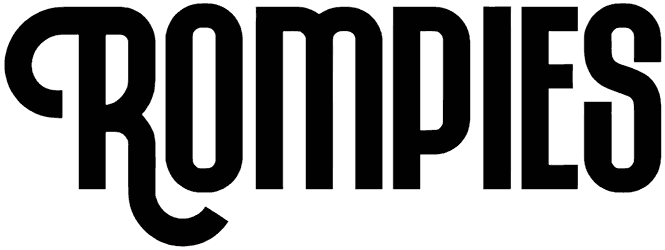
Rompies Font
For many designs, having a modest outward appearance that matches everyone’s taste can be one of the options on the table. This sans serif font, named Rompies, offers modern and unique letters and comes in two sets of capitals. This condensed font doesn’t have lowercase letters, but even without them, it continues to be an apt choice for a lot of designs, from logos to titles.